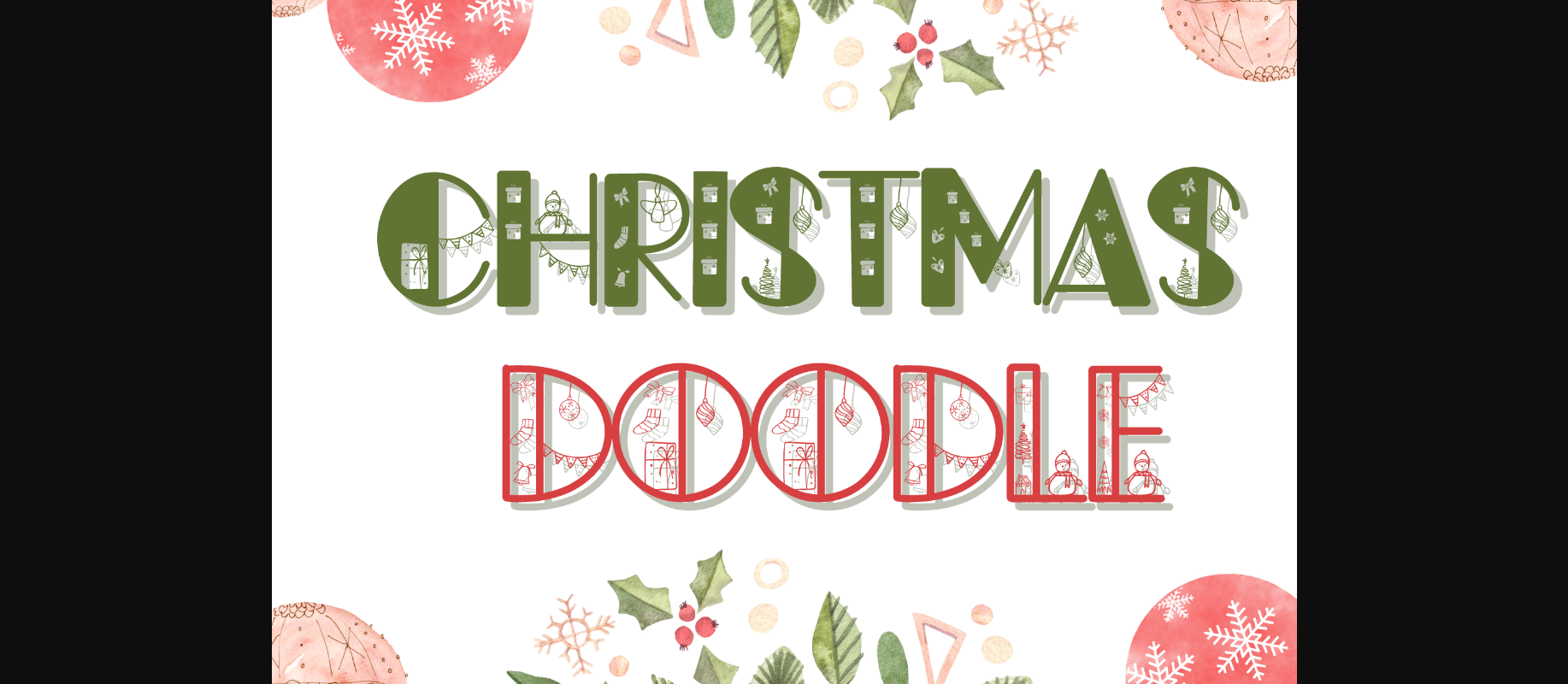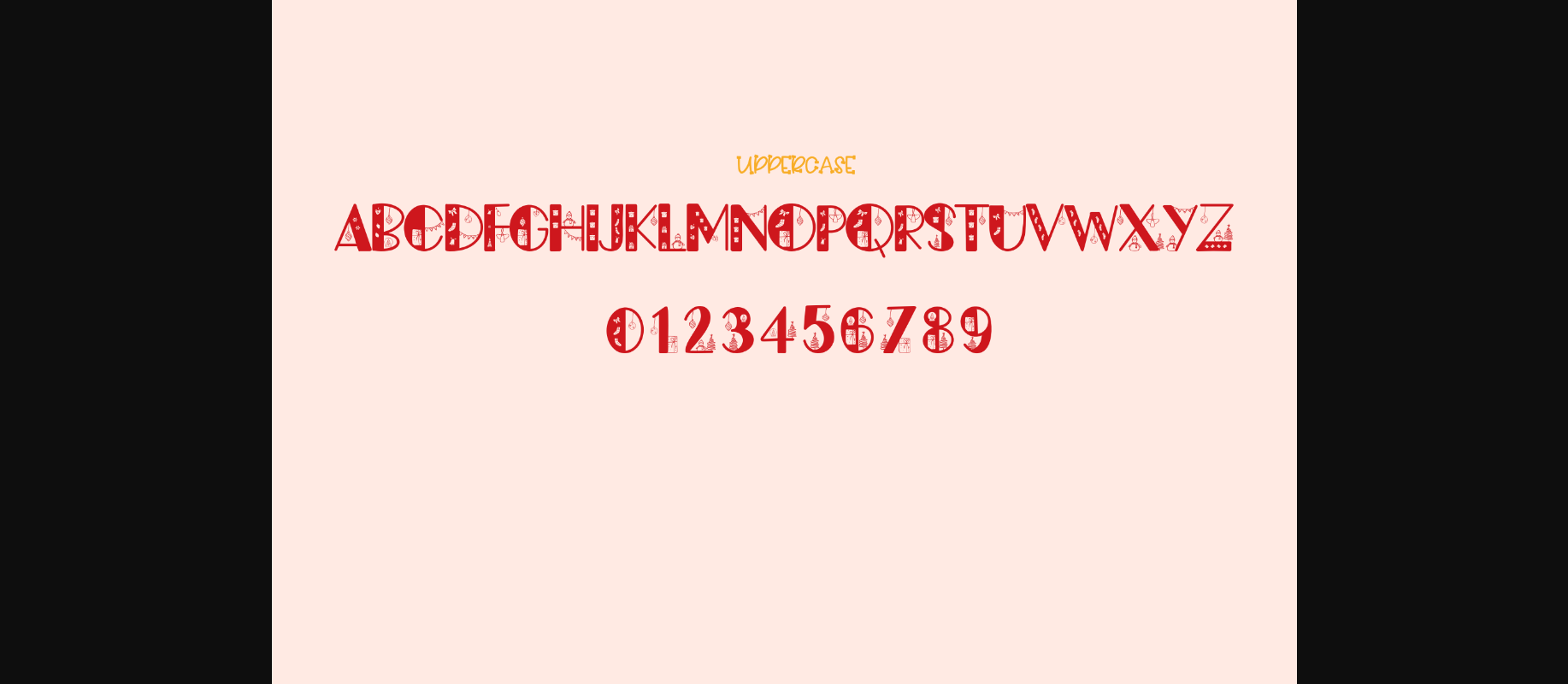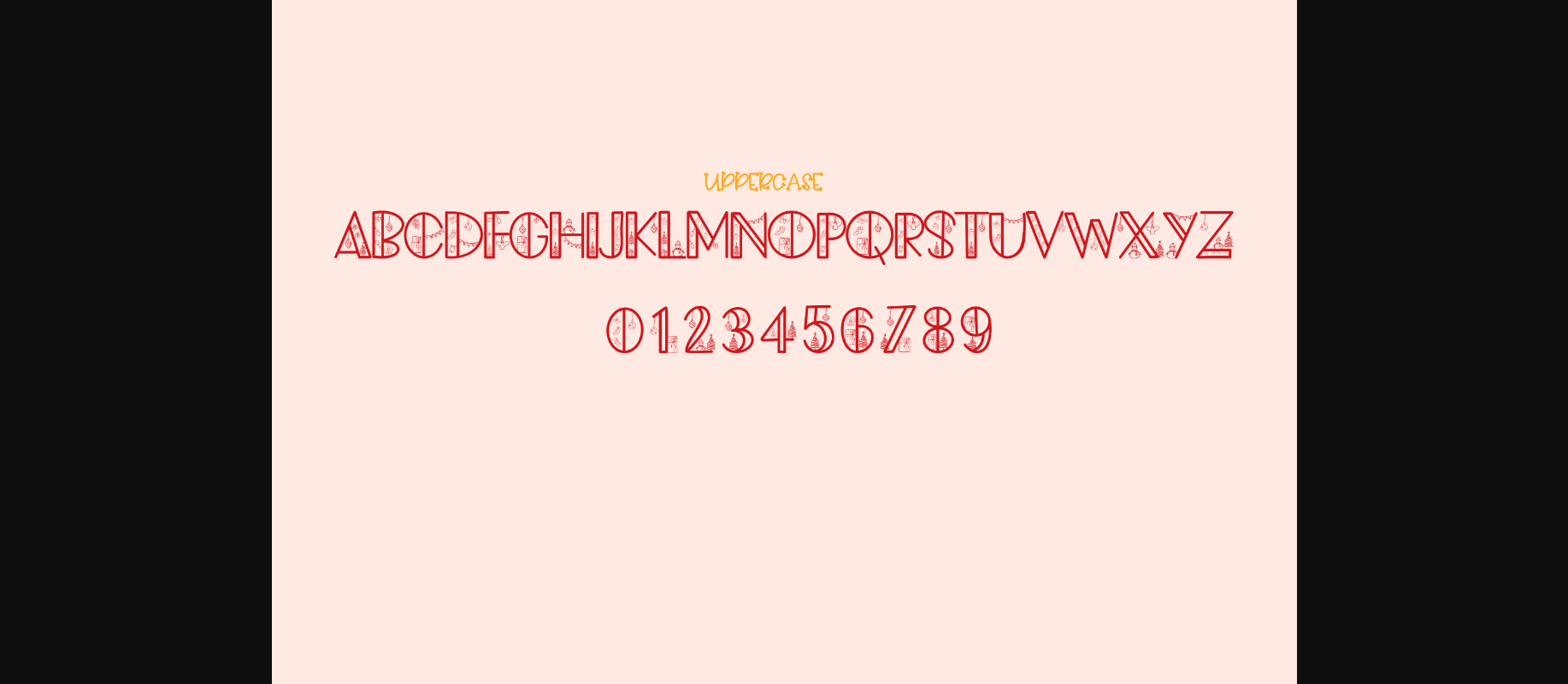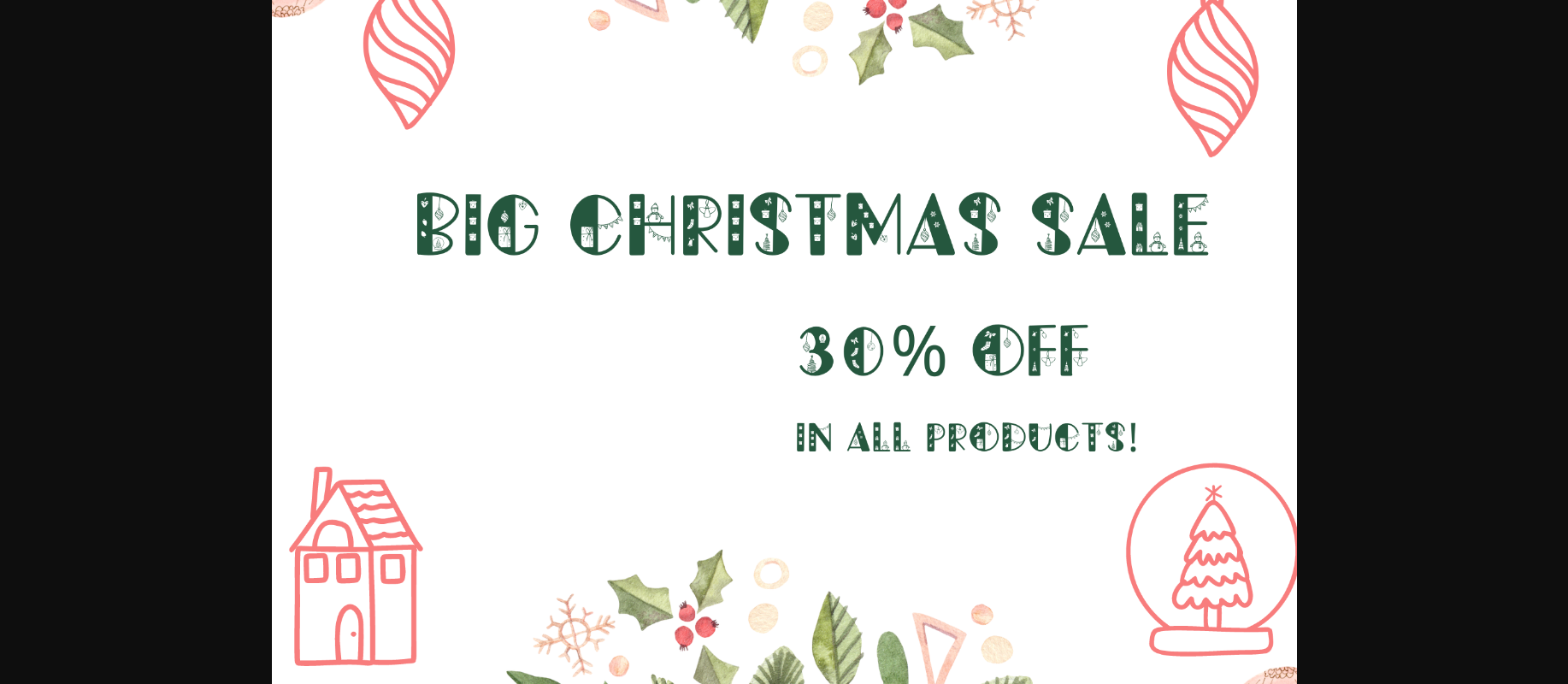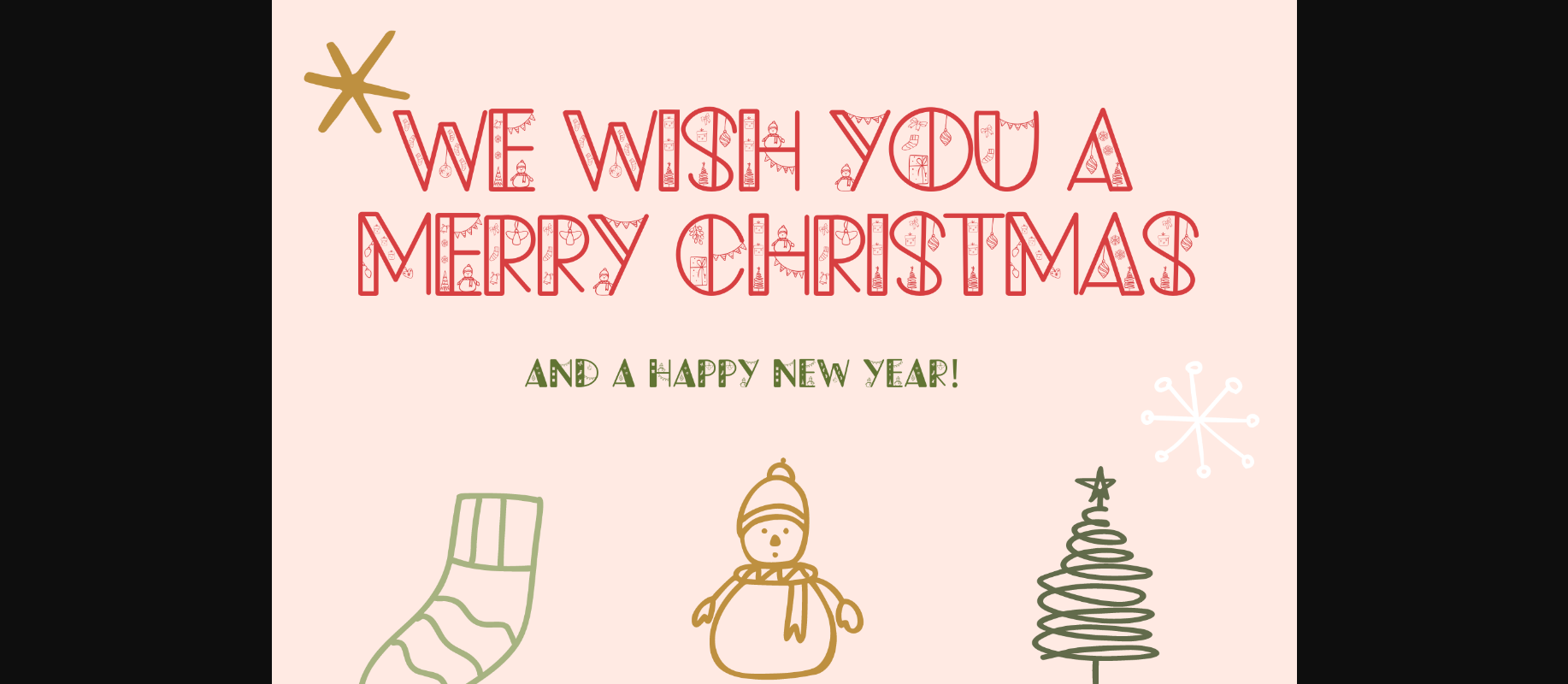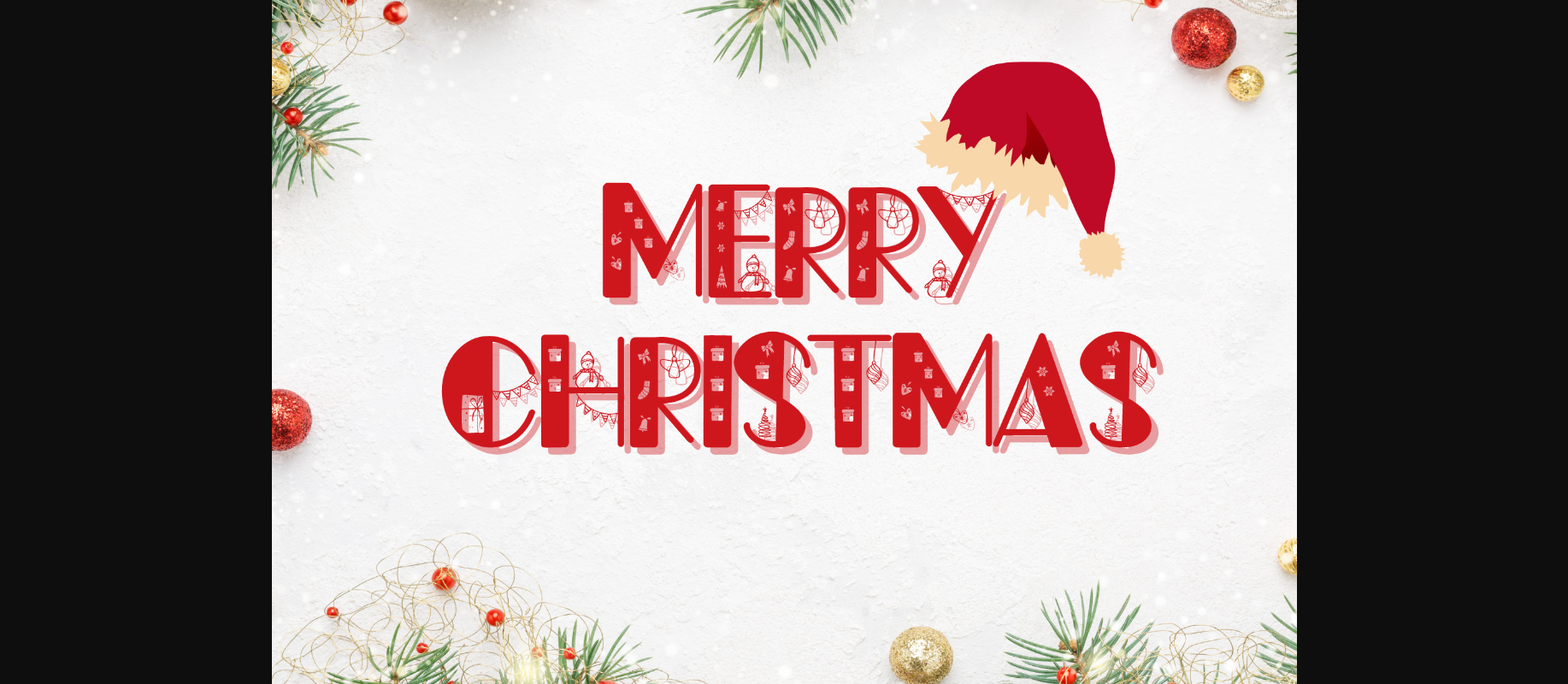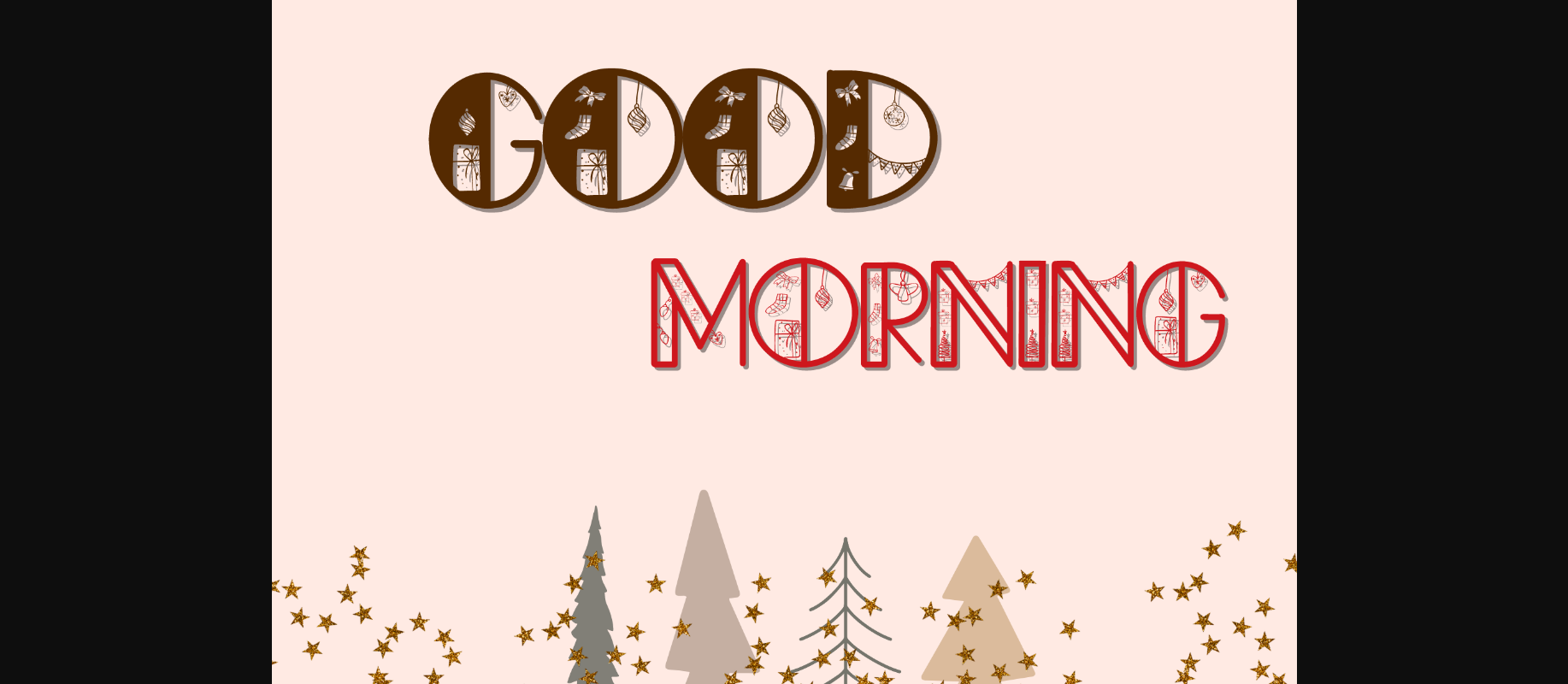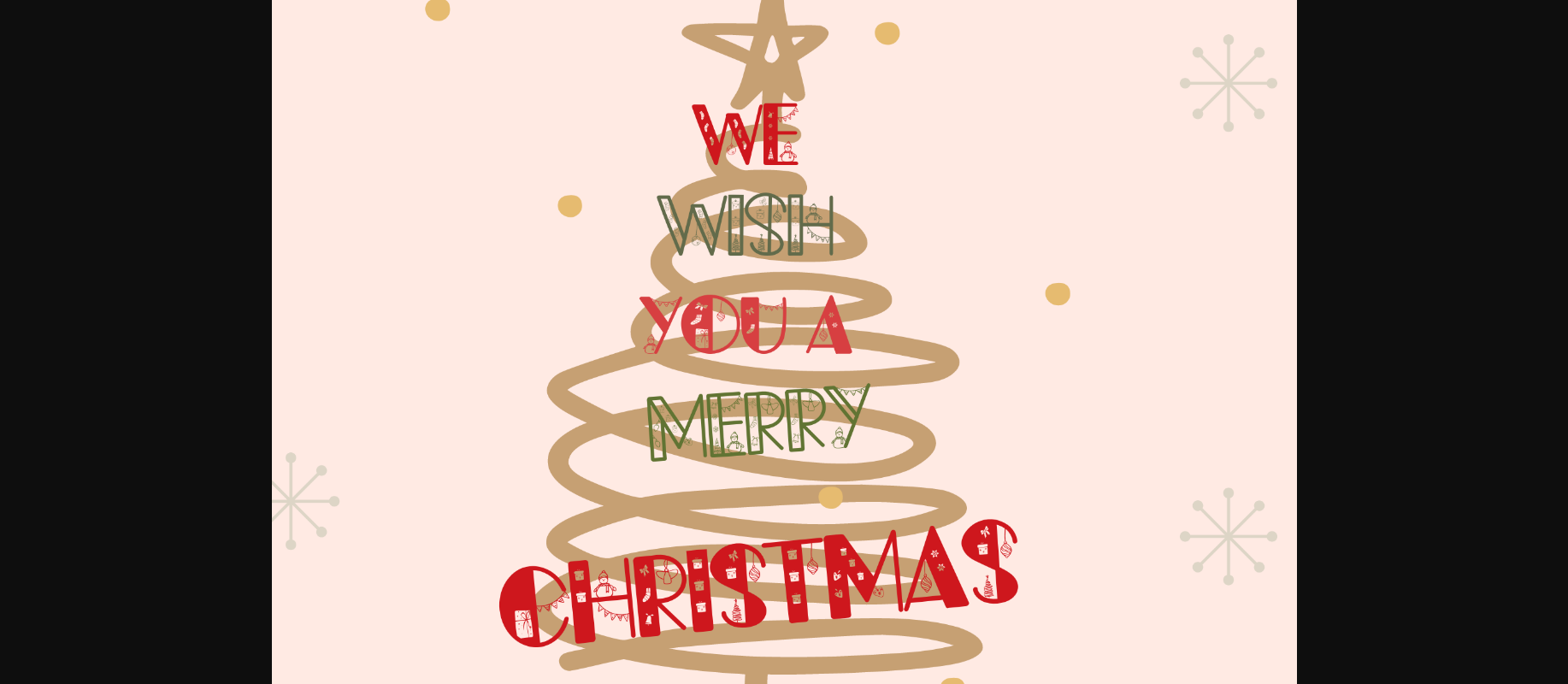
Christmas Doodle Font
About Christmas Doodle Font
Christmas Doodle is a delicate font (decorative, monoline script & sans serif) suitable for a wide spectrum of applications. From greeting cards to headlines, Its cute holiday vibe and casual charm will help you create lovely designs. Use it for t-shirts, stickers, tote bags, candy packaging, food menus, and more!